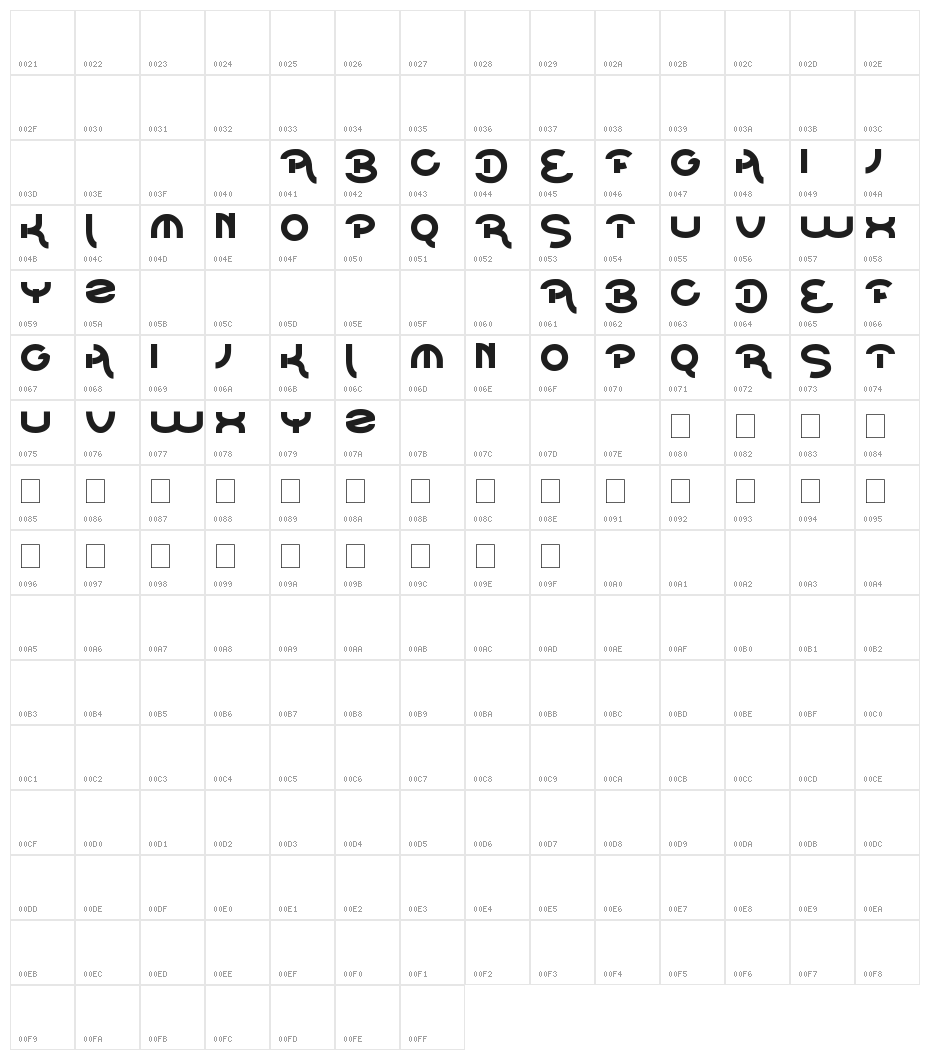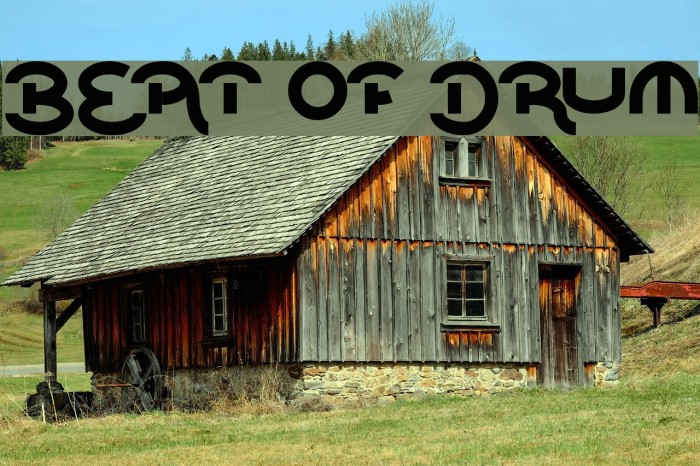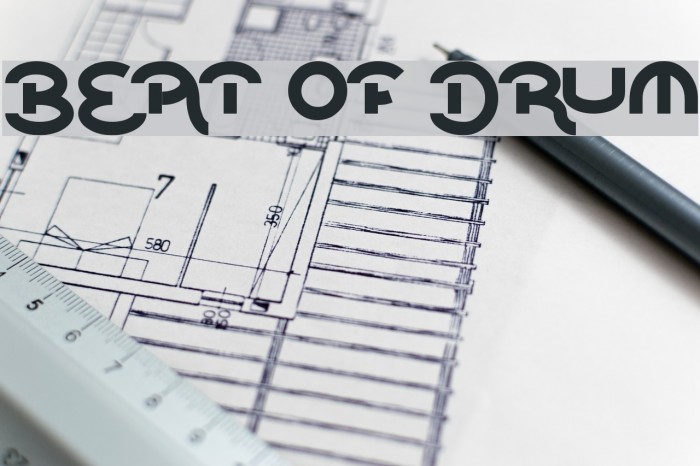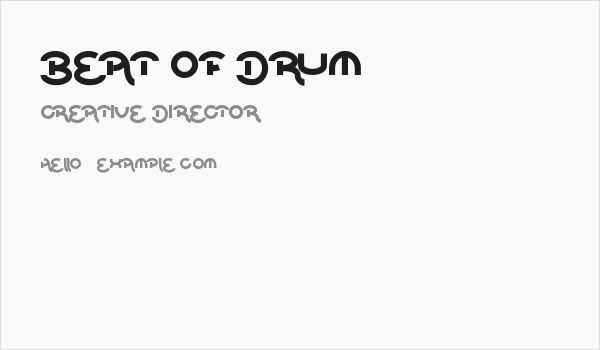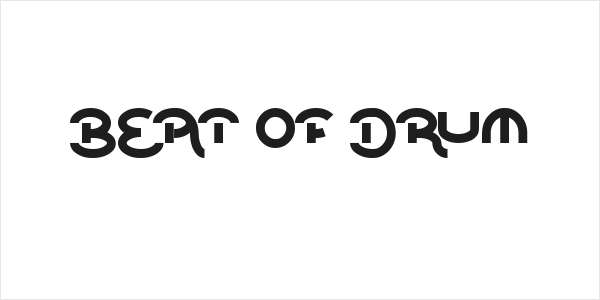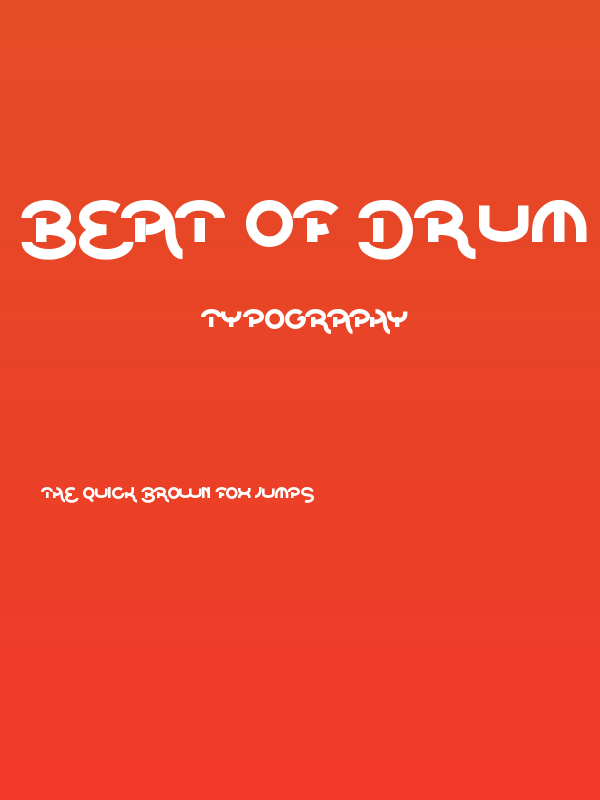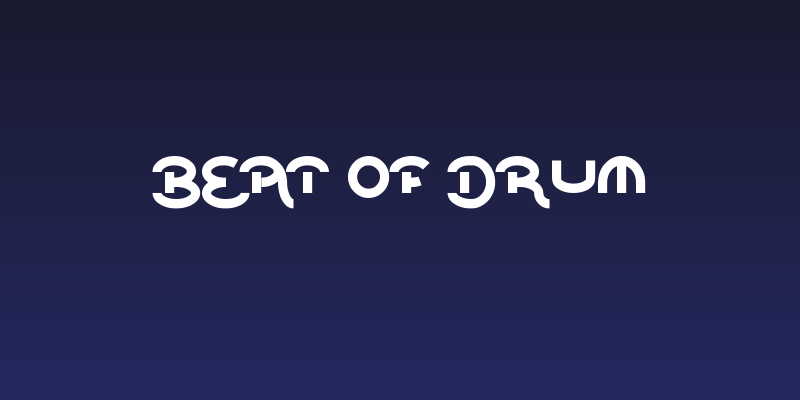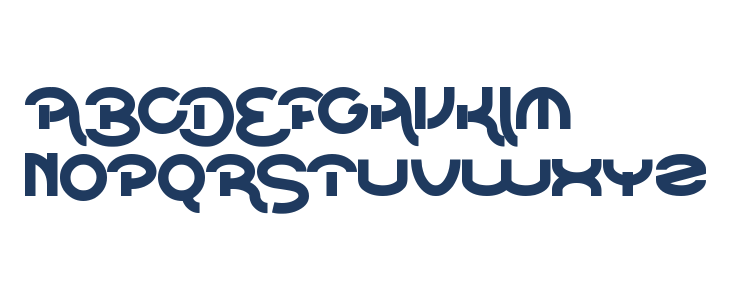
beat of drum Font
beat of drum Description
This font features a bold and striking design with a modern, decorative flair. The characters are crafted with thick strokes and unique geometric elements, creating a sense of rhythm and movement. The uppercase letters are particularly eye-catching, with curves and angles that suggest a tribal or cultural influence. The lowercase letters maintain a consistent style, complementing the uppercase set with similar boldness and creativity. The numbers and special characters are equally distinctive, ensuring a cohesive look across all text elements. This font is ideal for projects that require a strong visual impact and a touch of artistic expression.
| Proposed Projects | Ideal for posters, album covers, branding, and event invitations. |